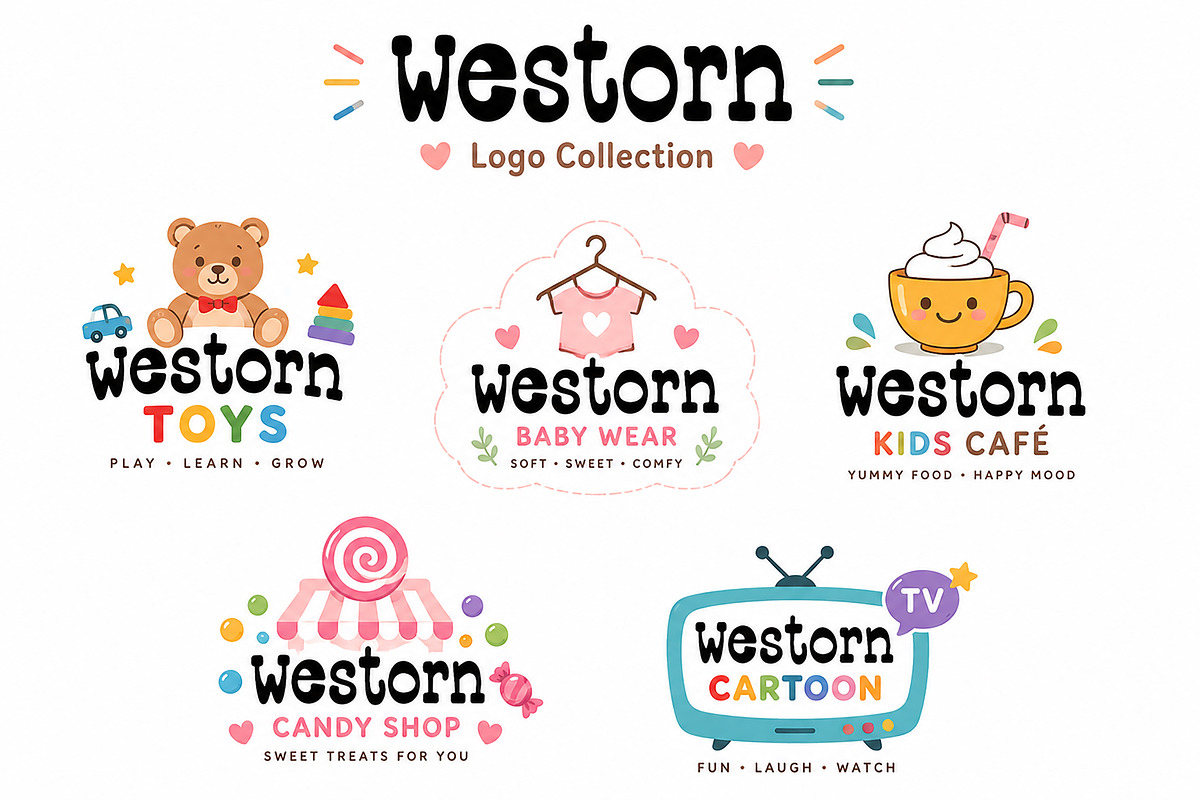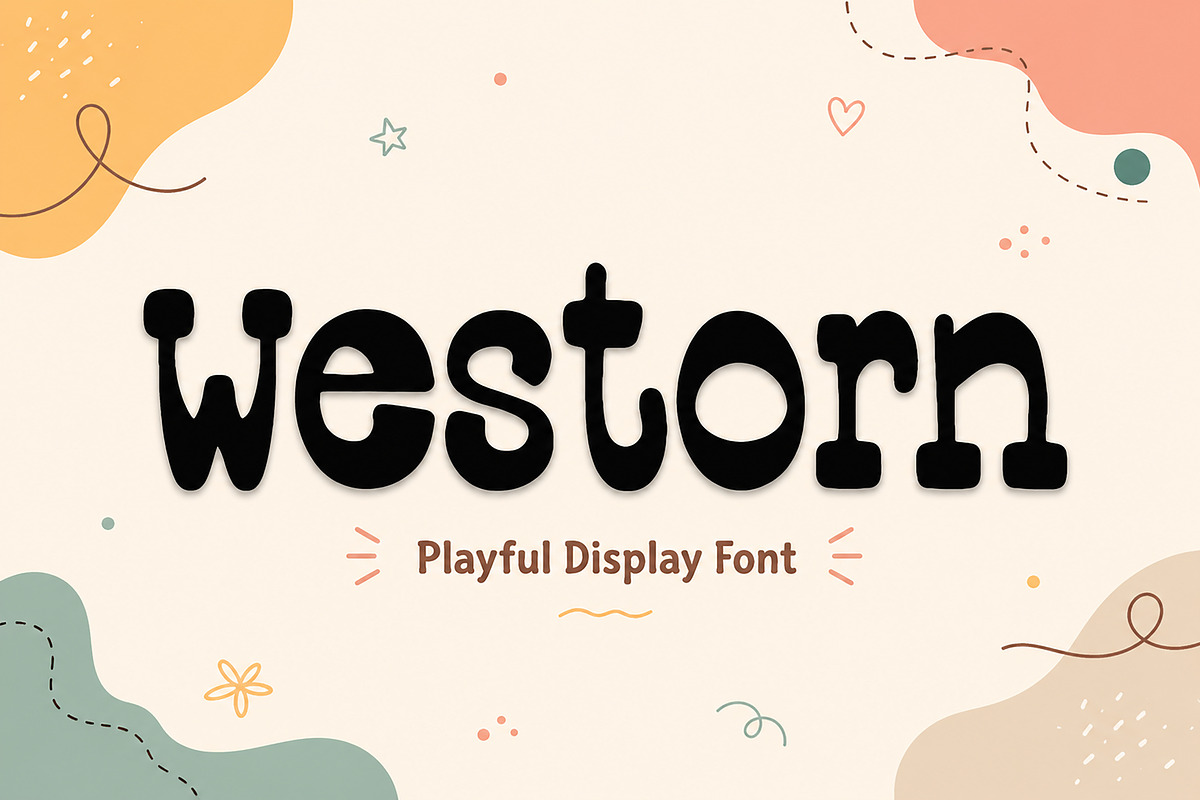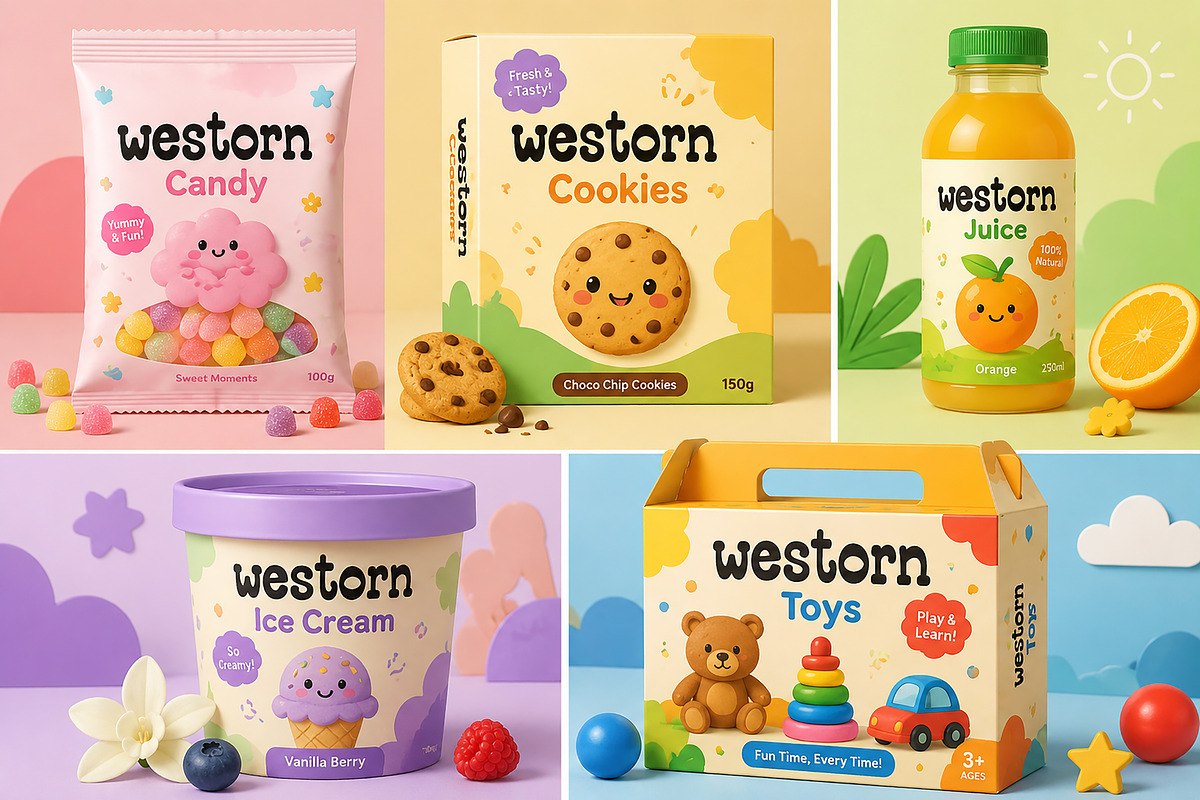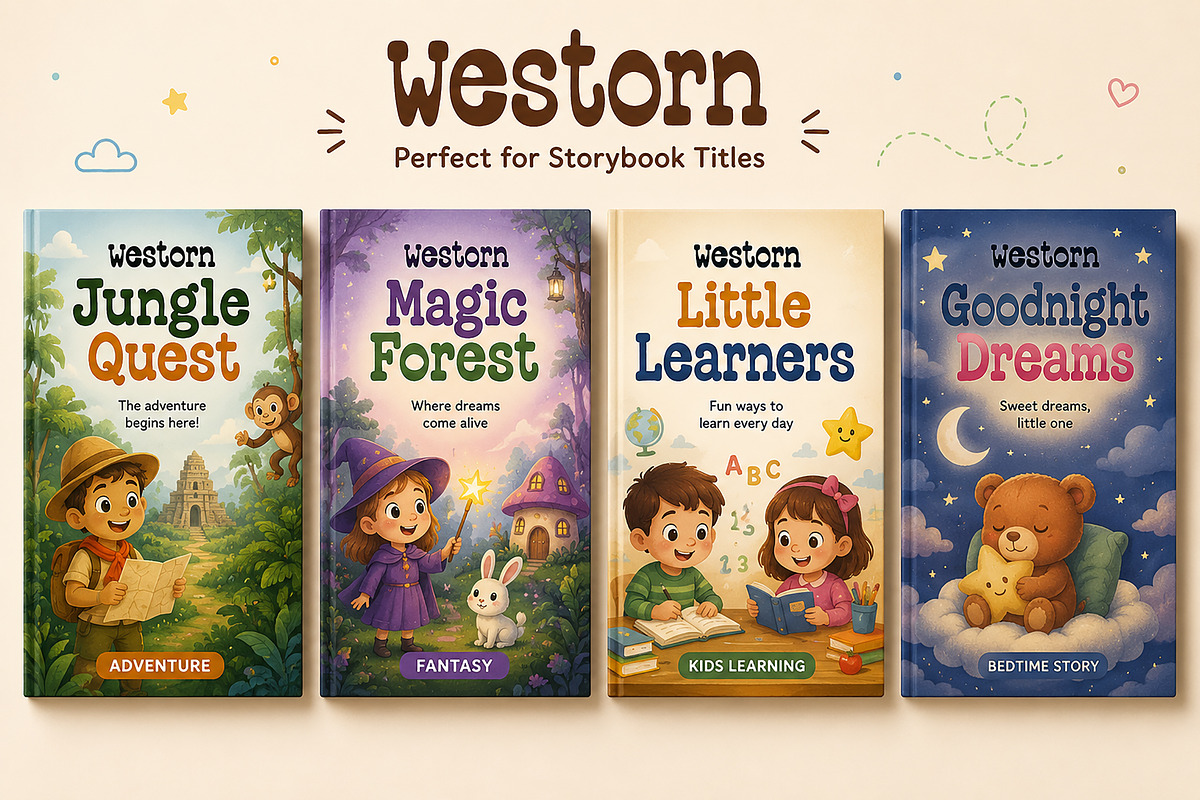
Westorn
Westorn is a playful display font crafted with a fun, friendly, and whimsical personality. Its soft rounded shapes and quirky letterforms make it perfect for projects that need a cheerful and creative touch. Designed to stand out while staying approachable, Westorn works beautifully for kids branding, storybook covers, playful logos, packaging, and social media graphics.
This font brings a joyful handmade feel that instantly adds warmth and charm to your designs. Whether you’re creating candy packaging, toy branding, educational materials, or fun quote posters, Westorn gives your work a unique and lovable style.
Kids branding
Toy packaging
Candy & snack labels
Children’s book covers
Baby product branding
Cartoon logos
Social media posts
Posters
YouTube thumbnails
Playful merchandise
Bring fun, creativity, and personality into your designs with Westorn — a playful font made to spread happiness.